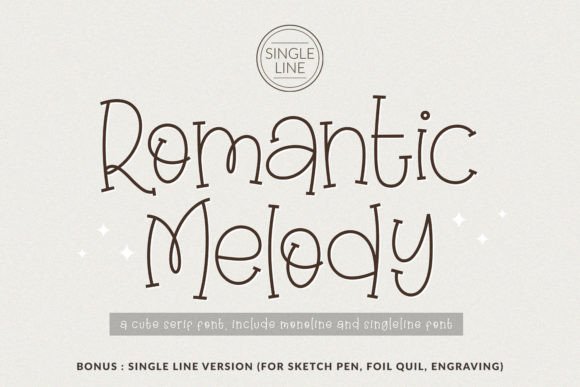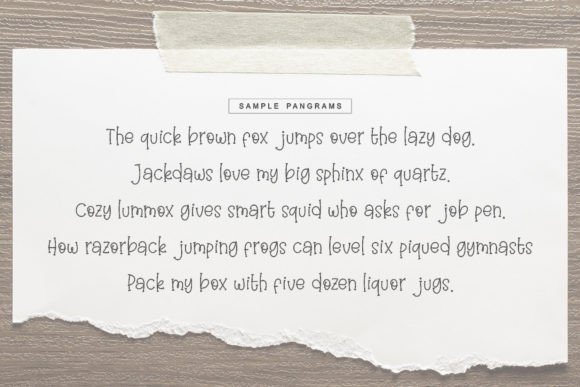
Romantic Melody Font
Romantic Melody is a cute and friendly handwritten serif font, perfect for your favorite projects. Fall in love with its incredibly distinct and timeless style and use it to create spectacular designs!